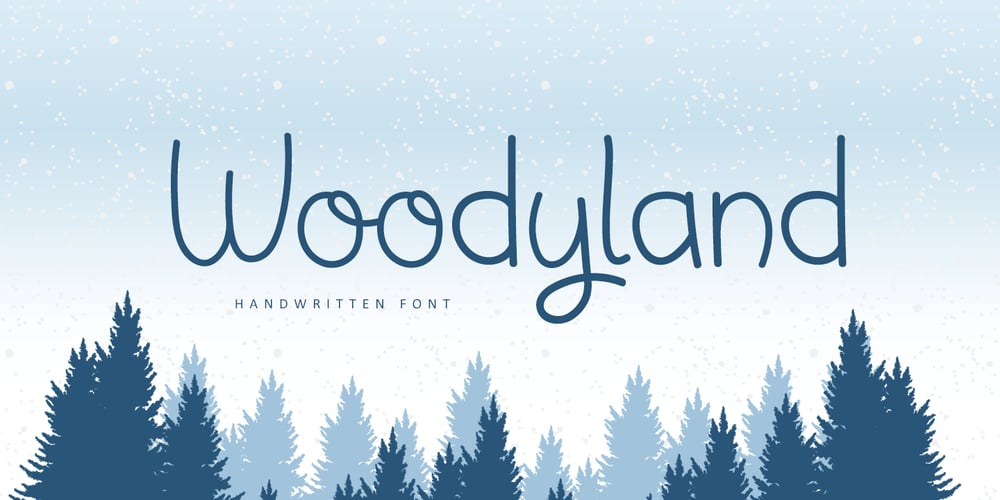
Woodyland
Woodyland font
Woodyland Font Family was designed by Bayu Suwirya and published by Illushvara. Woodyland contains 1 styles and family package options. Hello,Woodyland is a cute and friendly handwriting font that is perfect for winter design or crafty projects. Use it for branding, crafts for decor, invitations, and more!Features : Uppercase and lowercase Numbers Symbols Ligature Multilingual Accent If you have any question, don’t hesitate to contact me. Happy Designing !!!Thank You,Bayu Suwirya